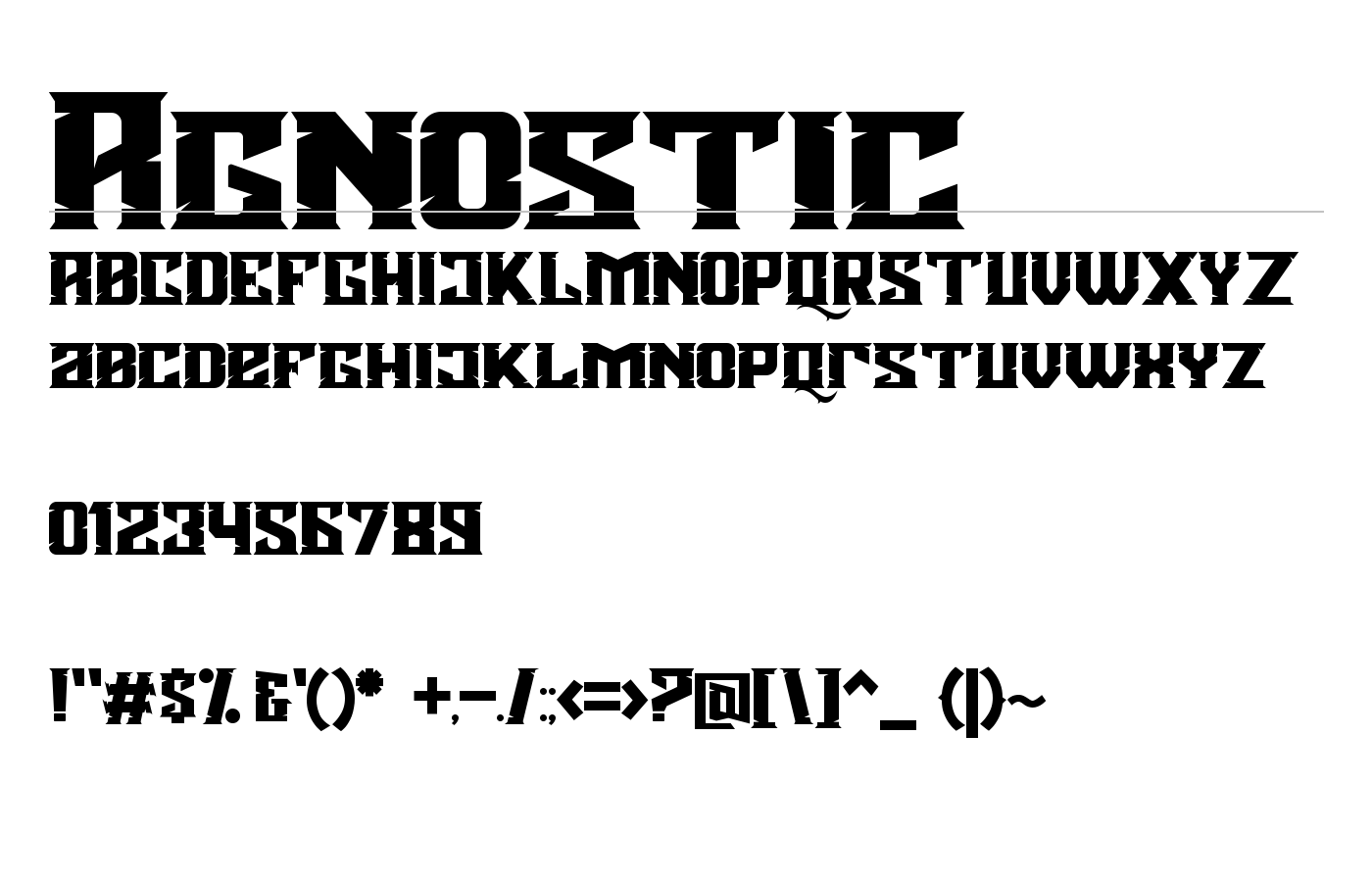
Agnostic is a bold slab serif font with a striking, geometric structure and high contrast between thick and thin strokes. Its sharp, angular serifs and condensed letterforms give it a strong, commanding presence that suits edgy branding, posters, and headlines where impact is key. This font’s distinctive style blends a modern toughness with a touch of vintage flair, making it ideal for designs that want to stand out with confidence and attitude.
Agnostic Font
About Agnostic Font